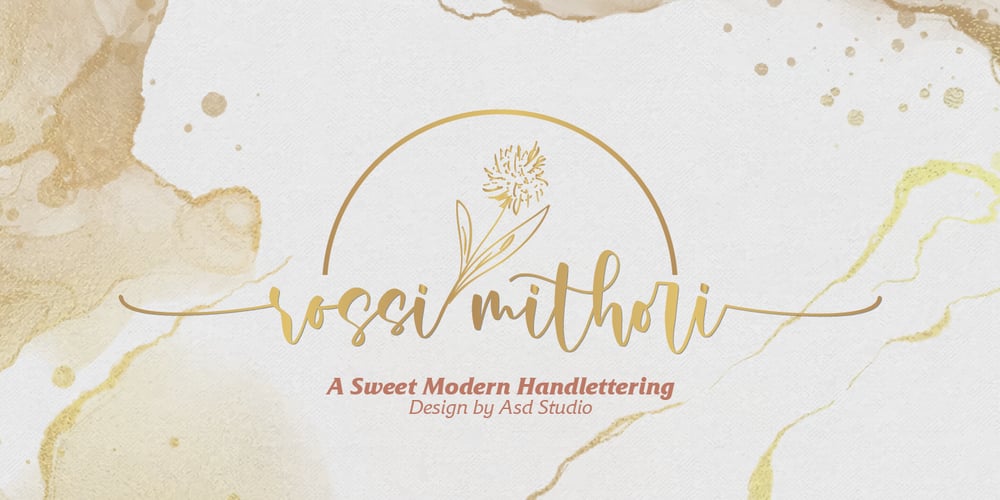
Rossi Mithori Font Family was designed by Ghazi and published by Asd Studio. Rossi Mithori contains 1 styles and family package options. Rossi Mithori is a script font created with love, sincerity, and patience. can be used to make invitation writing, lettering, and all graphic design needs. This font is only equipped with 2 stylistic sets, but it will still look beautiful; and some alternative characters that will make your design look more attractive and beautiful.I highly recommend using a program that supports OpenType featuresand Glyphs panels such as Adobe Illustrator, Adobe Photoshop CC, Adobe InDesign, or CorelDraw, so you can see and access all Glyph variations.This font is encoded with Unicode PUA, which allows full access toall additional characters without having special design software. Mac users can use Font Book, and Windows users can use Character Map to view and copy one of the extra characters to paste into your favorite text editor / application.Thank you if you are interested in purchase and using my font. I hope you enjoy the font, thank you.